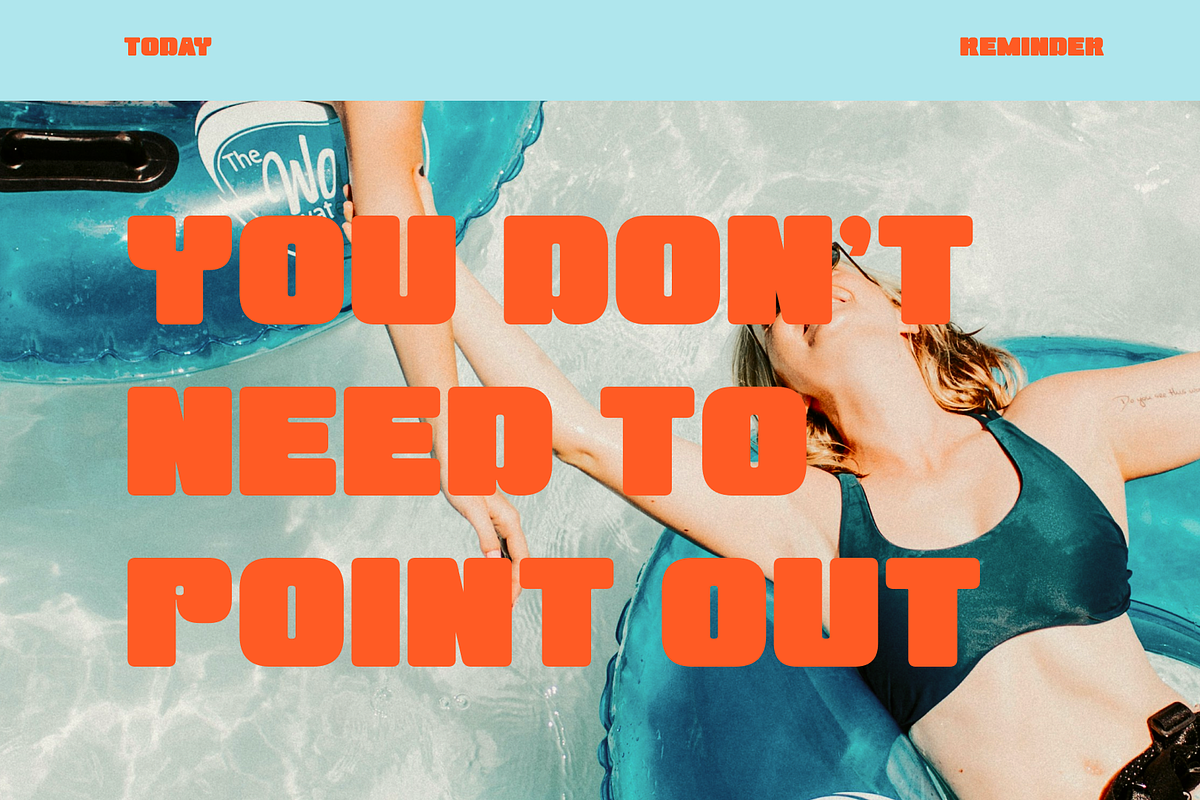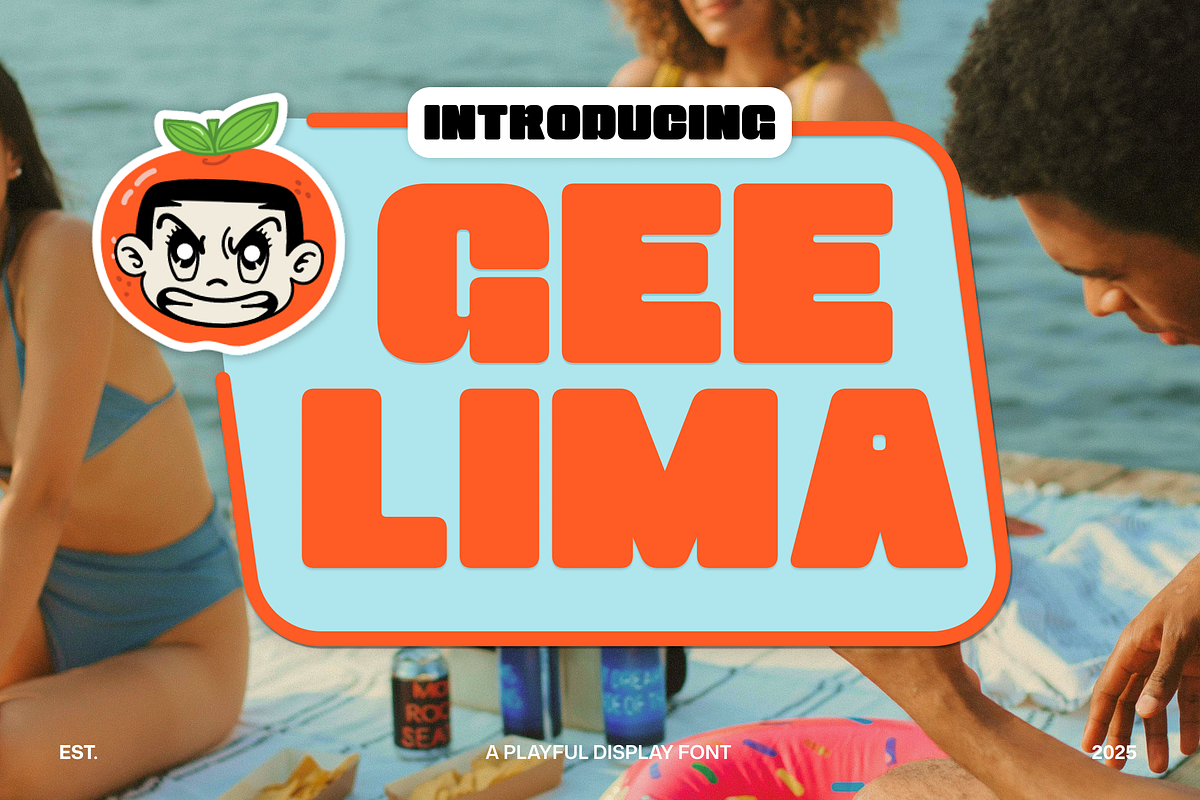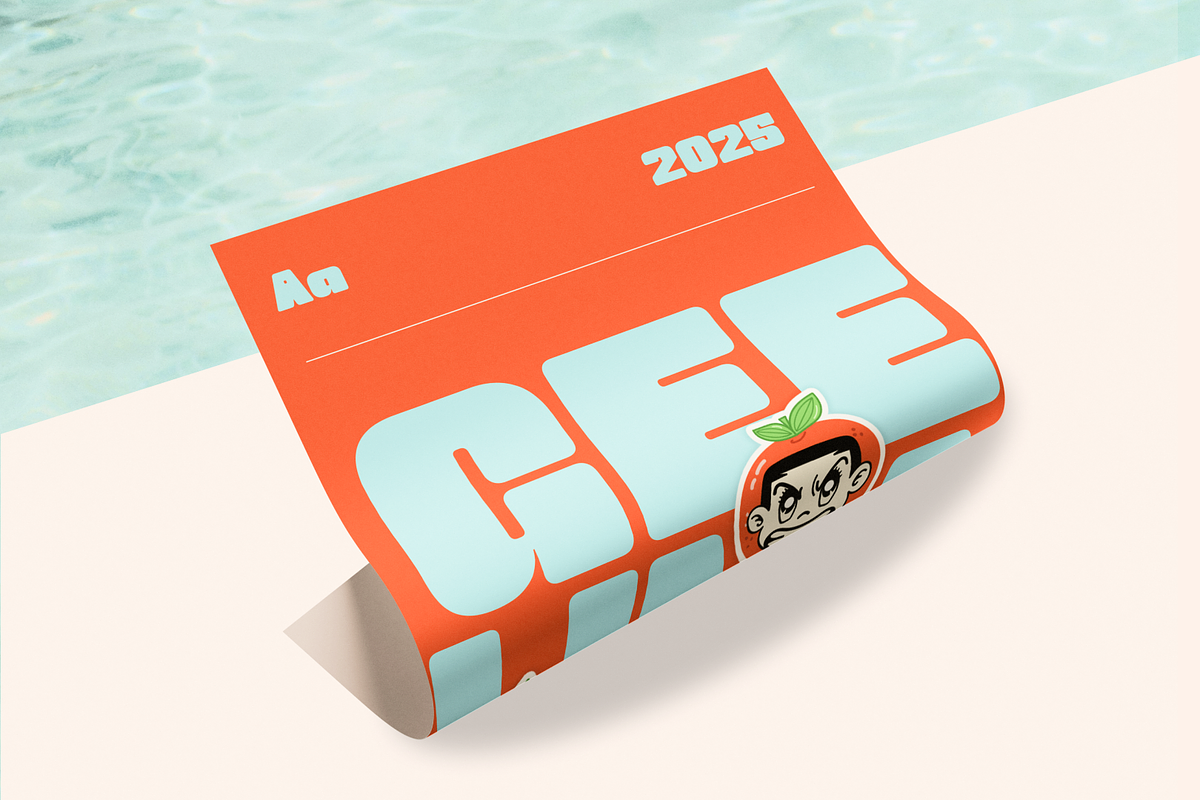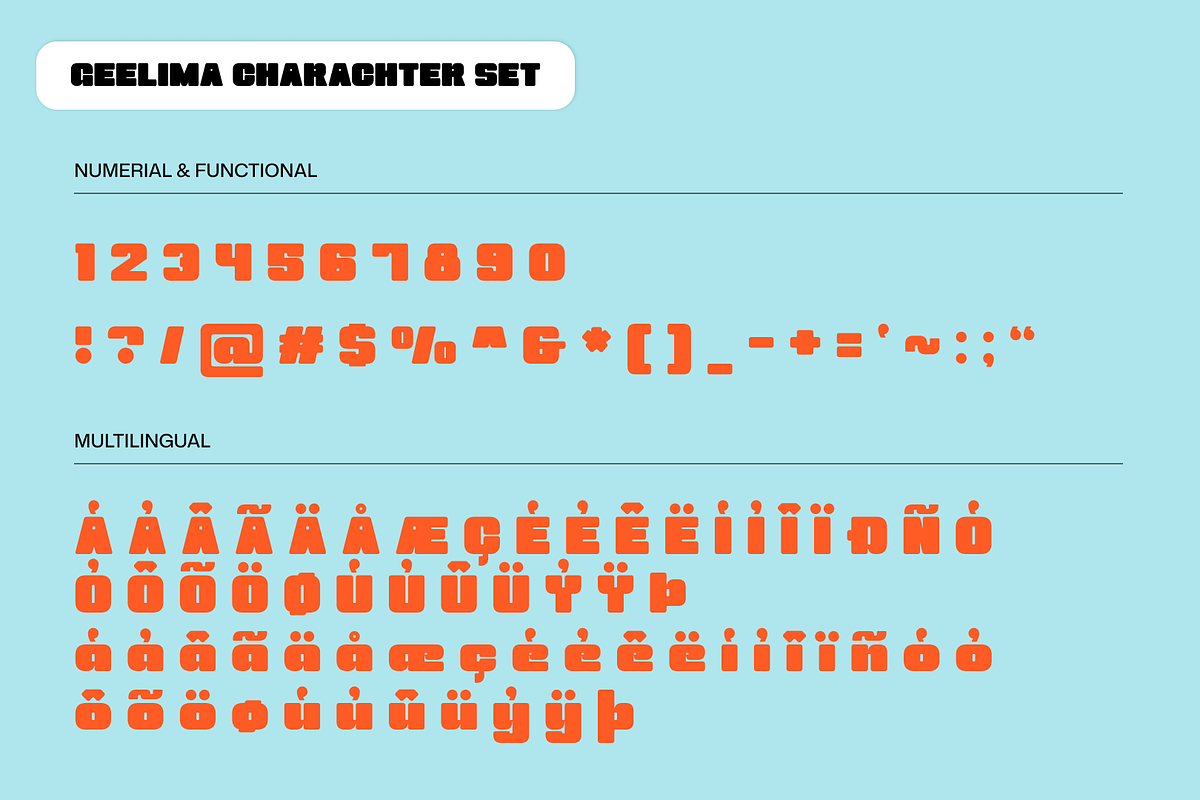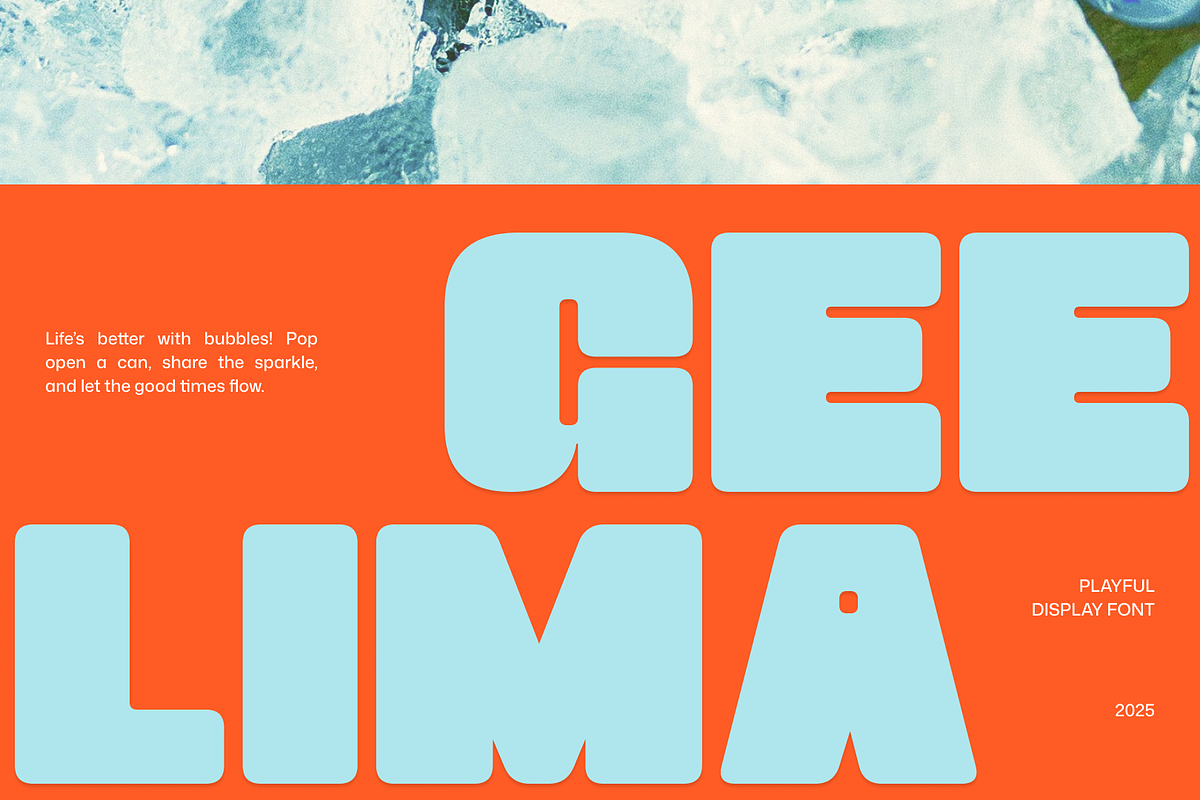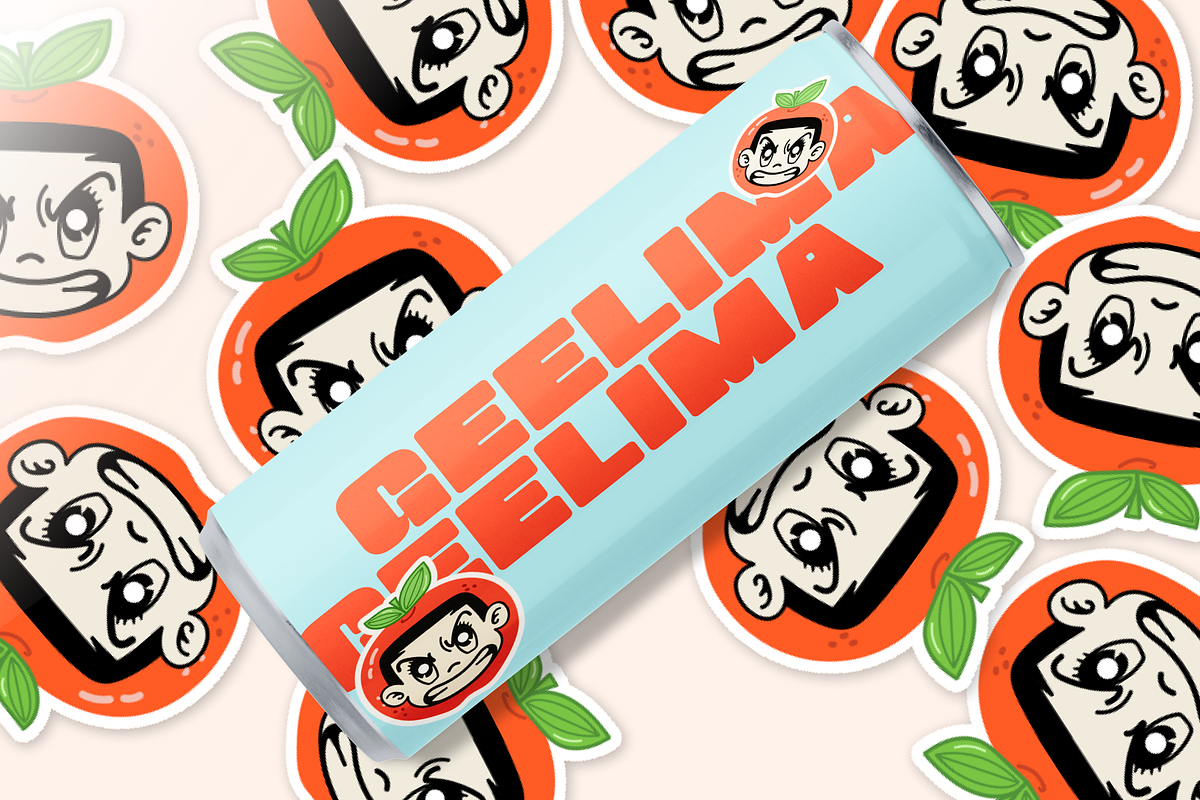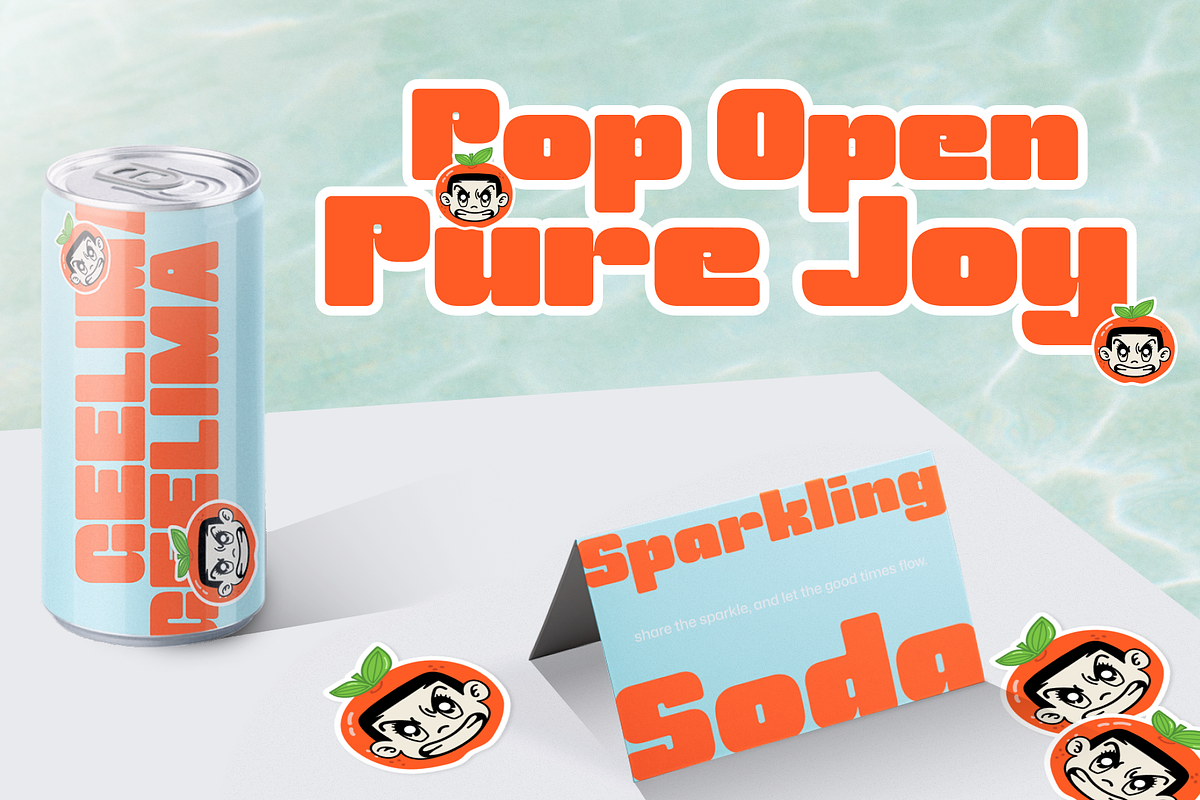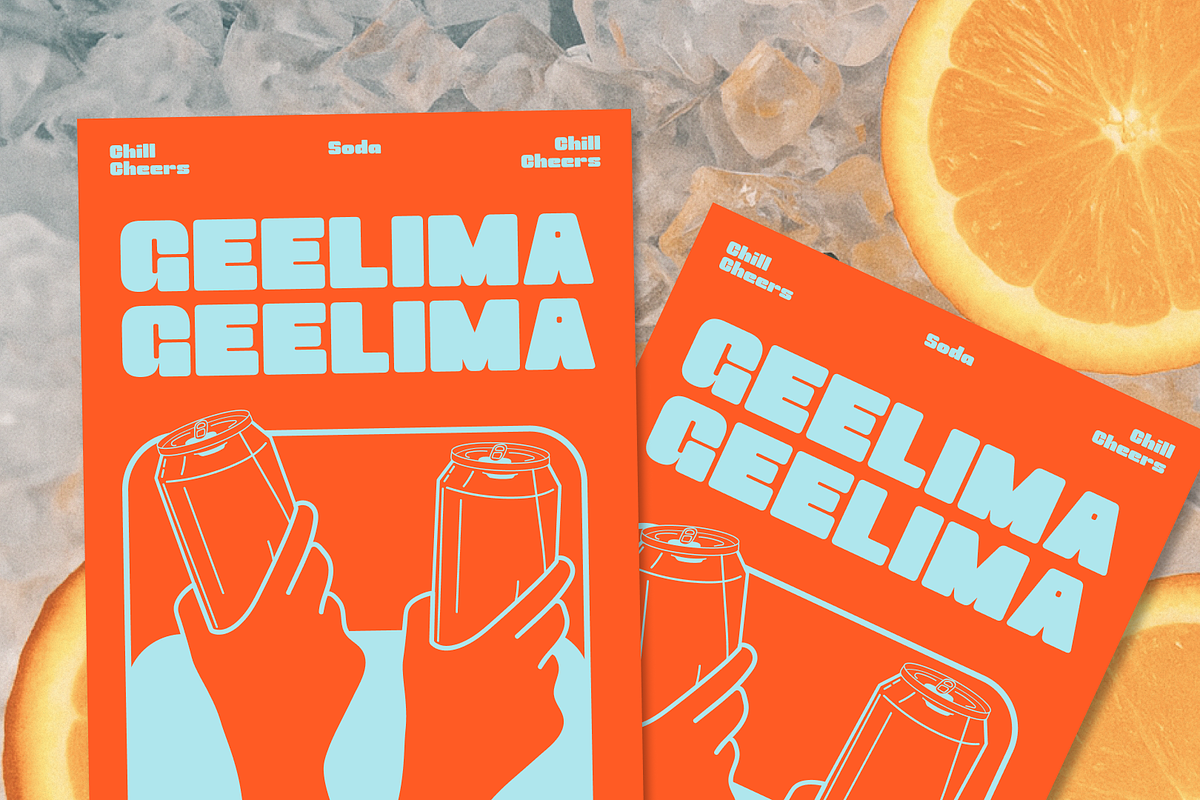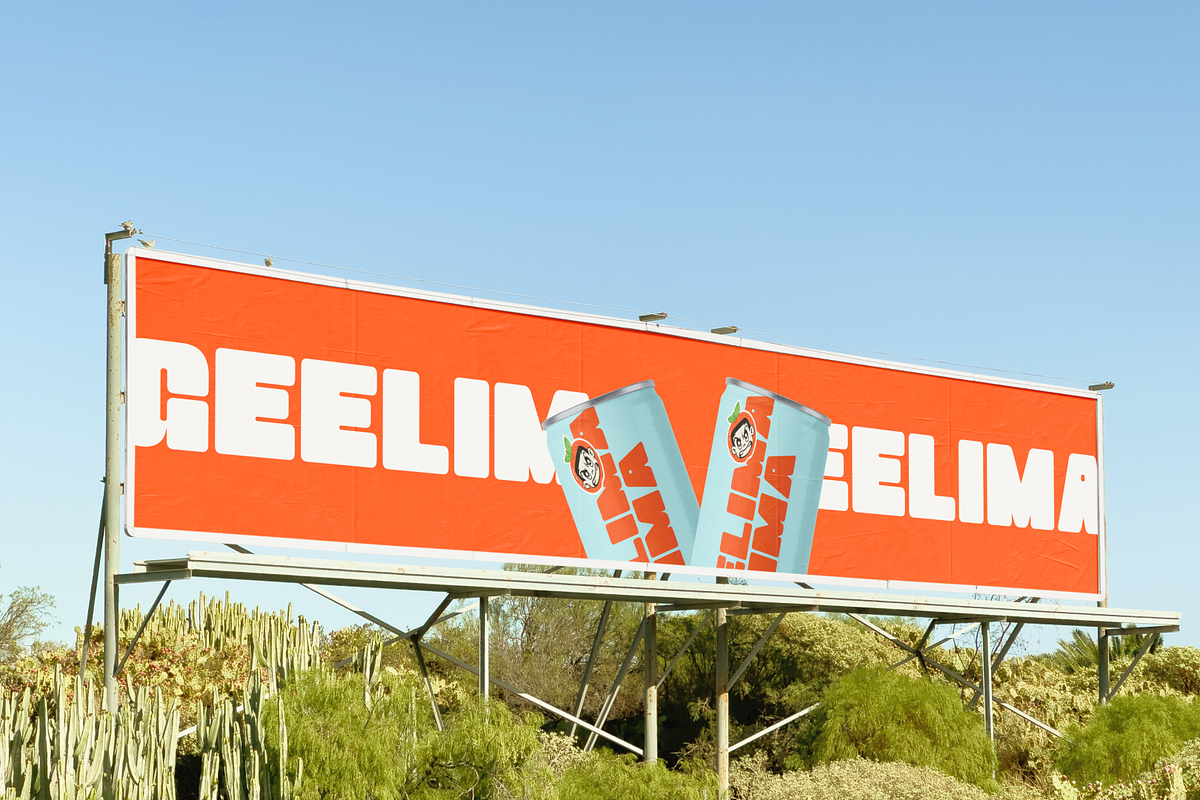
Geelima - Bold Display Font
Geelima punches through the visual clutter with confidence. Each letter’s thick, geometric build and gentle curves deliver a vibe that’s both powerful and playful. Whether splashed across a storefront sign or anchoring a digital banner, it grabs eyes and holds them. It’s the perfect partner when you need a message that’s loud without ever feeling harsh.
Rise above the ordinary with Geelima’s commanding presence. Its blocky forms anchor your brand in strength, while rounded edges add a friendly, human touch. Use it to forge instant recognition—on product labels, wayfinding, or social-media art—where trust and boldness must coexist. Geelima doesn’t whisper; it smiles and shouts your message.